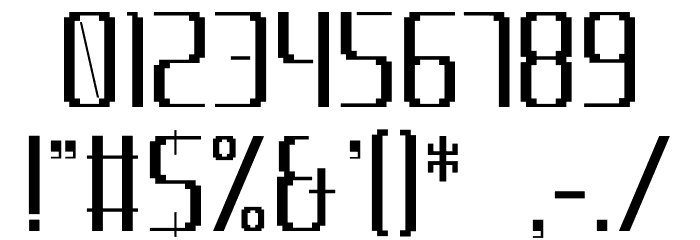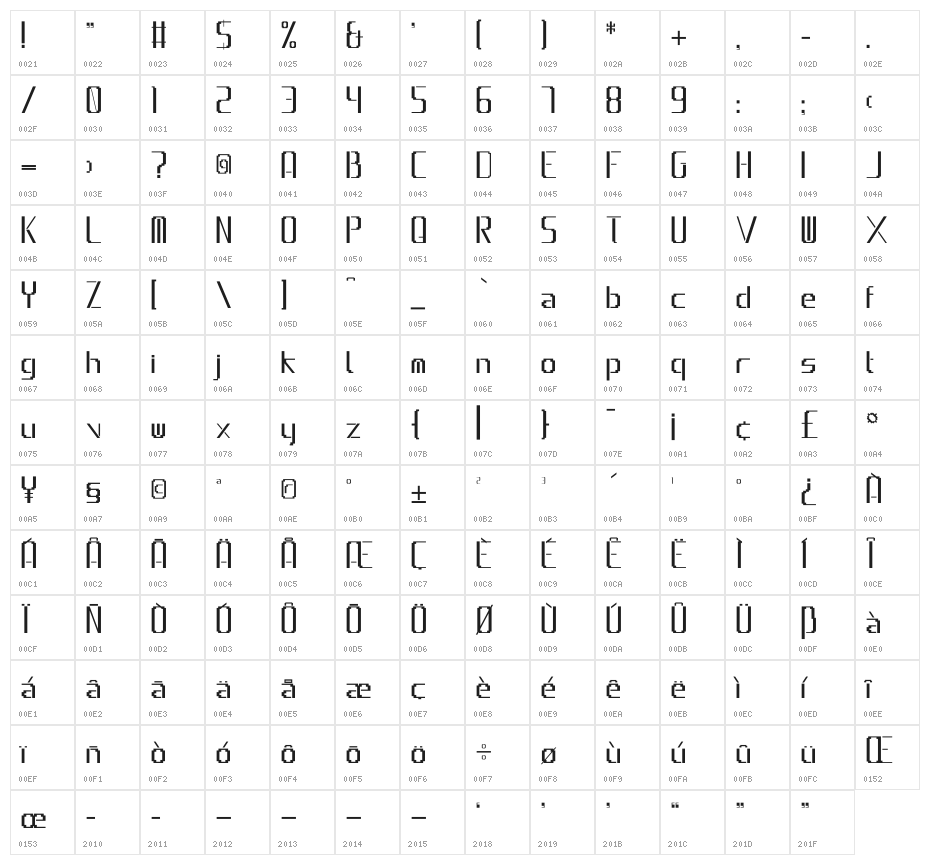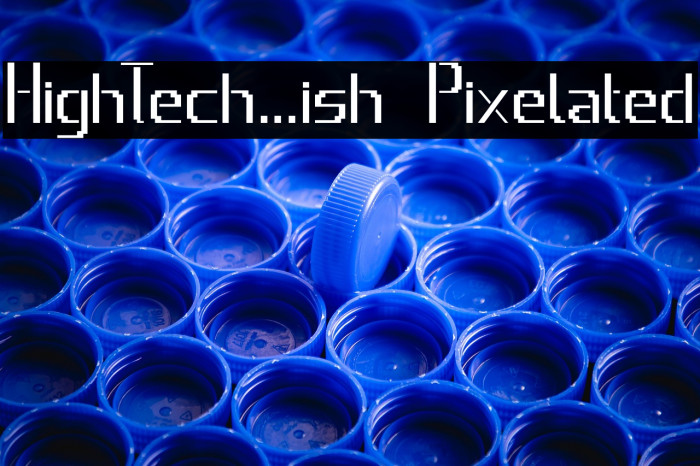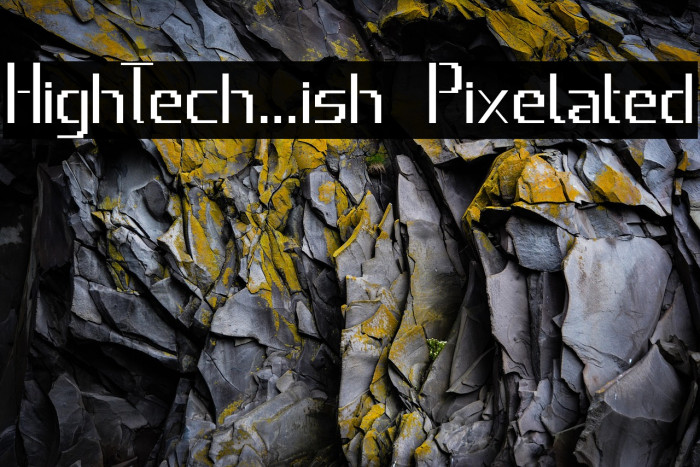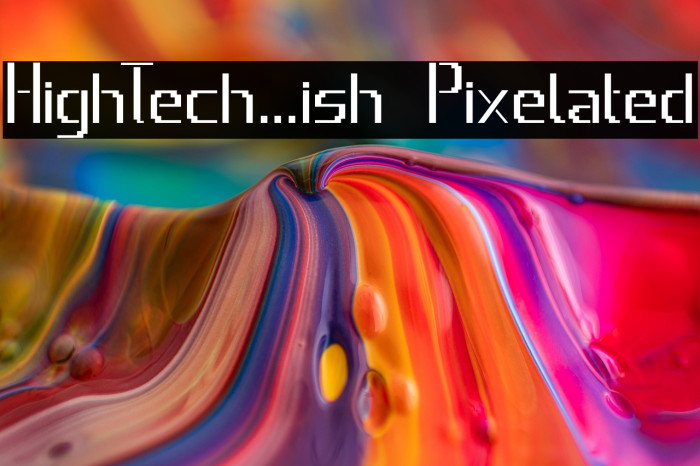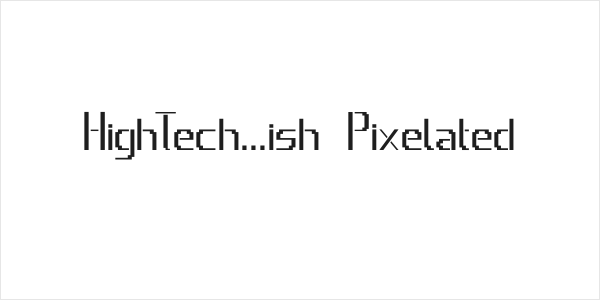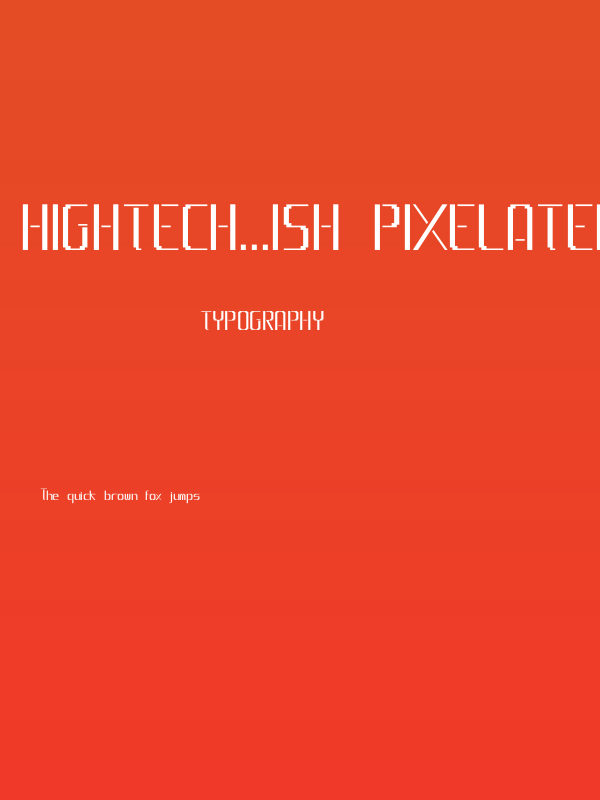
HighTech...ish Pixelated Font
HighTech...ish Pixelated Description
This font exhibits a distinctly pixelated, digital aesthetic reminiscent of early computer graphics and video game typography. Each character is constructed with a blocky, grid-like structure, giving it a retro, tech-inspired feel. The uppercase and lowercase letters maintain a consistent height and width, contributing to a uniform appearance. The numerals and special characters follow the same pixelated style, ensuring visual coherence across all glyphs. This font's design is both nostalgic and futuristic, making it suitable for projects that aim to evoke a sense of digital nostalgia or a high-tech atmosphere.